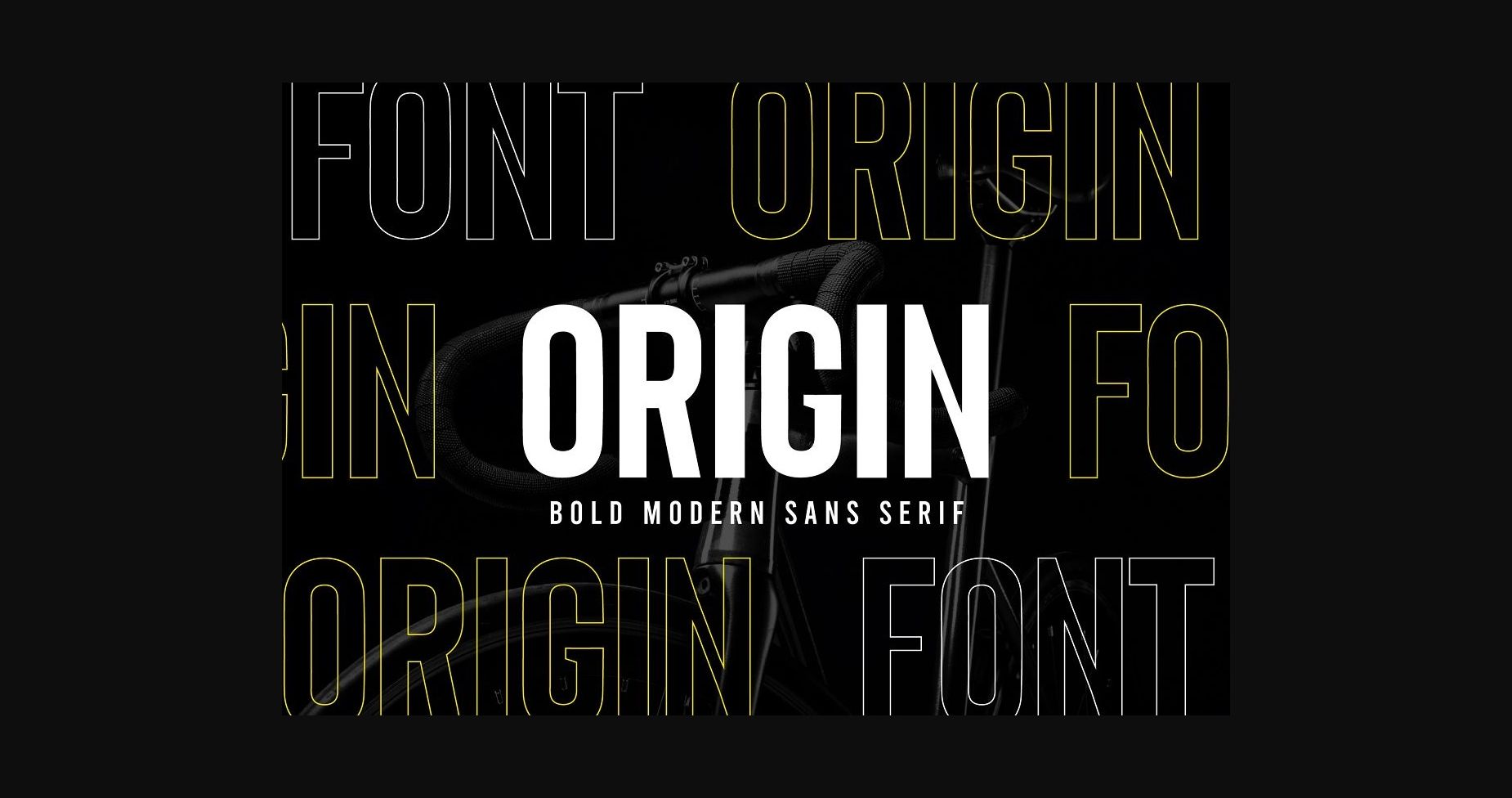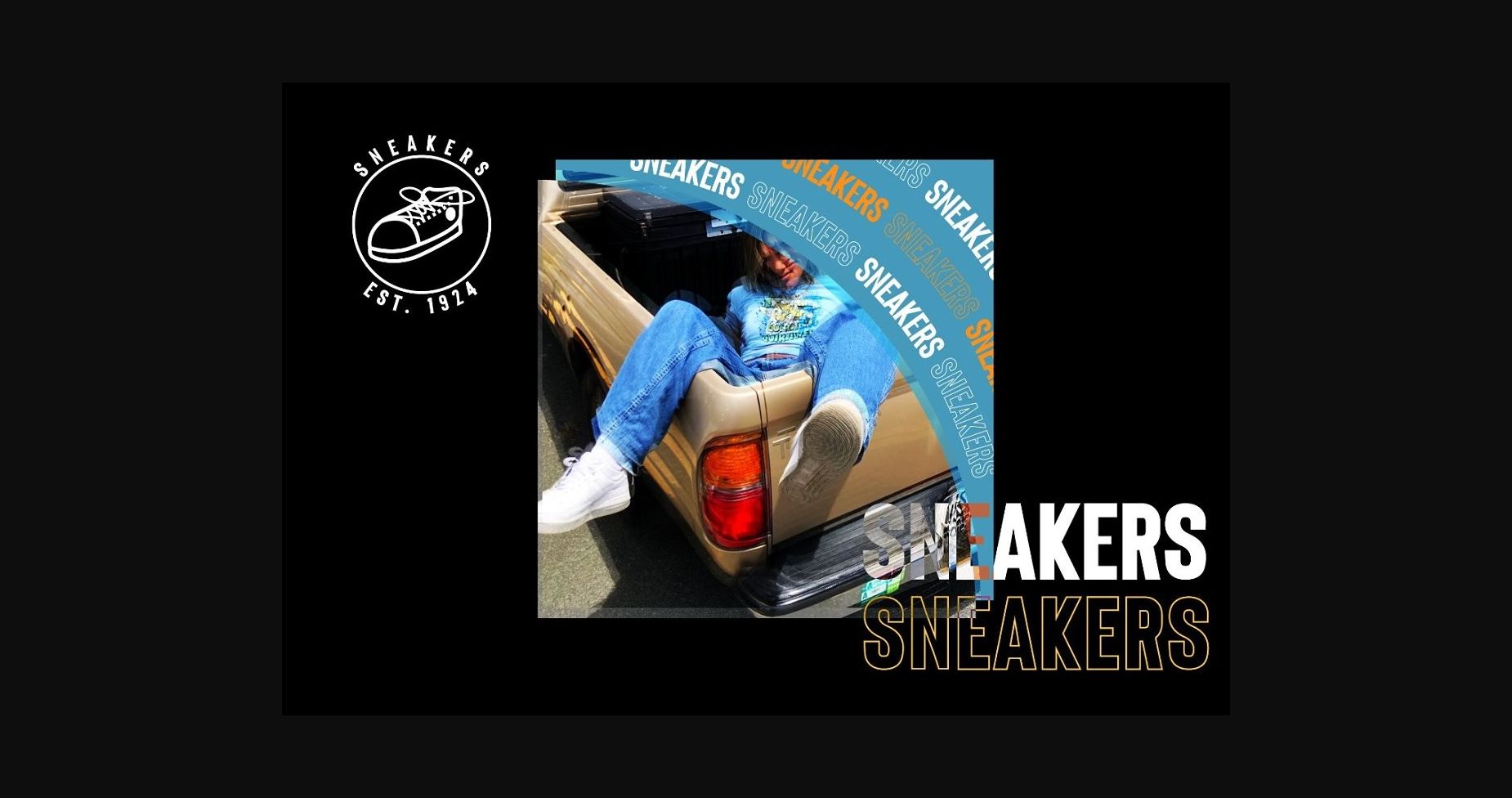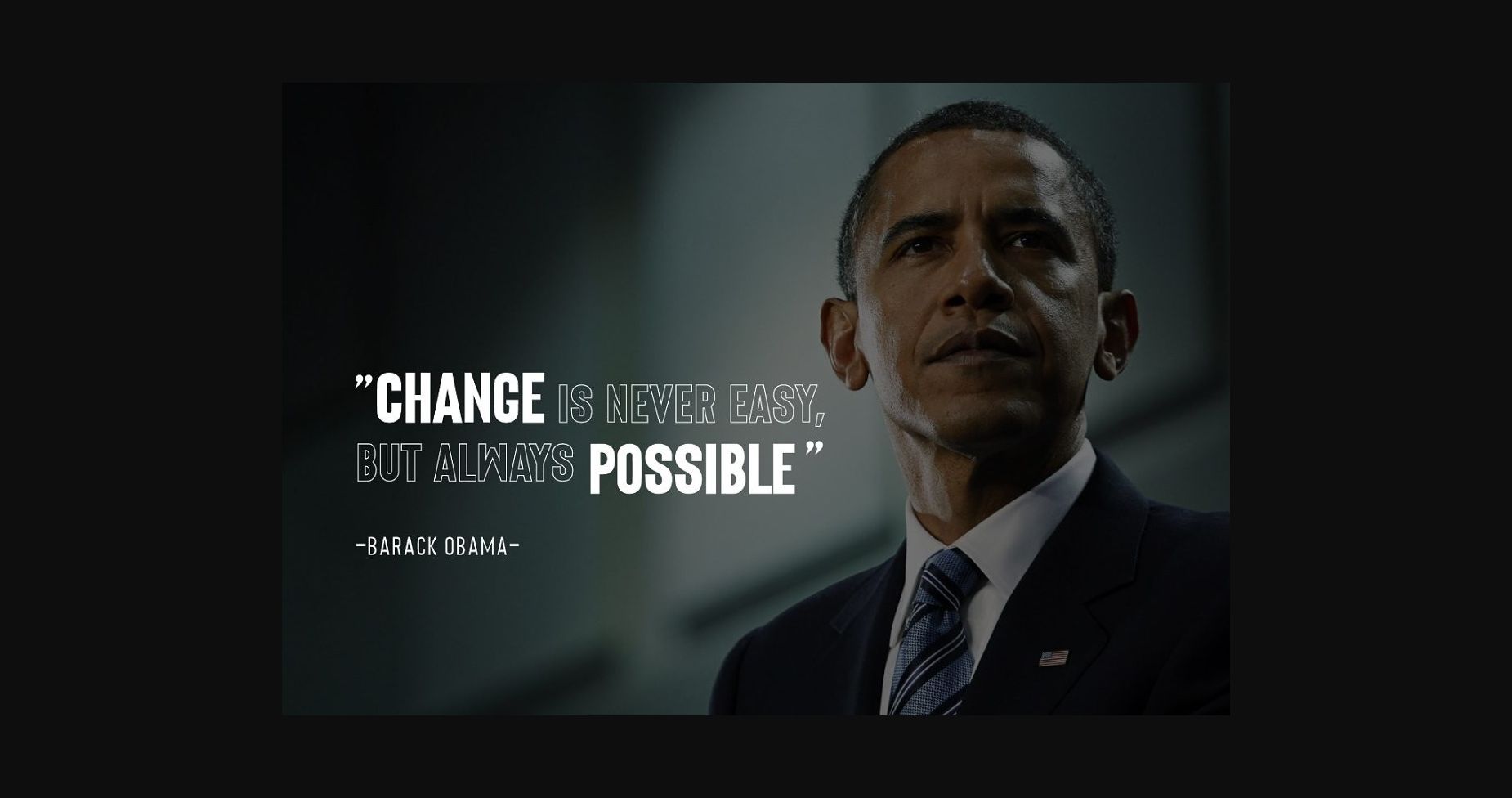
Origin Font
About Origin Font
Origin is a bold and simple lettered sans serif font. Suitable to a wide variety of designs due to its generic style, this font has the potential to become your favorite go-to font, no matter the occasion!